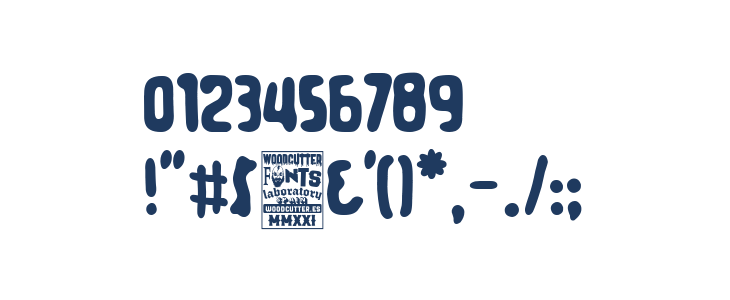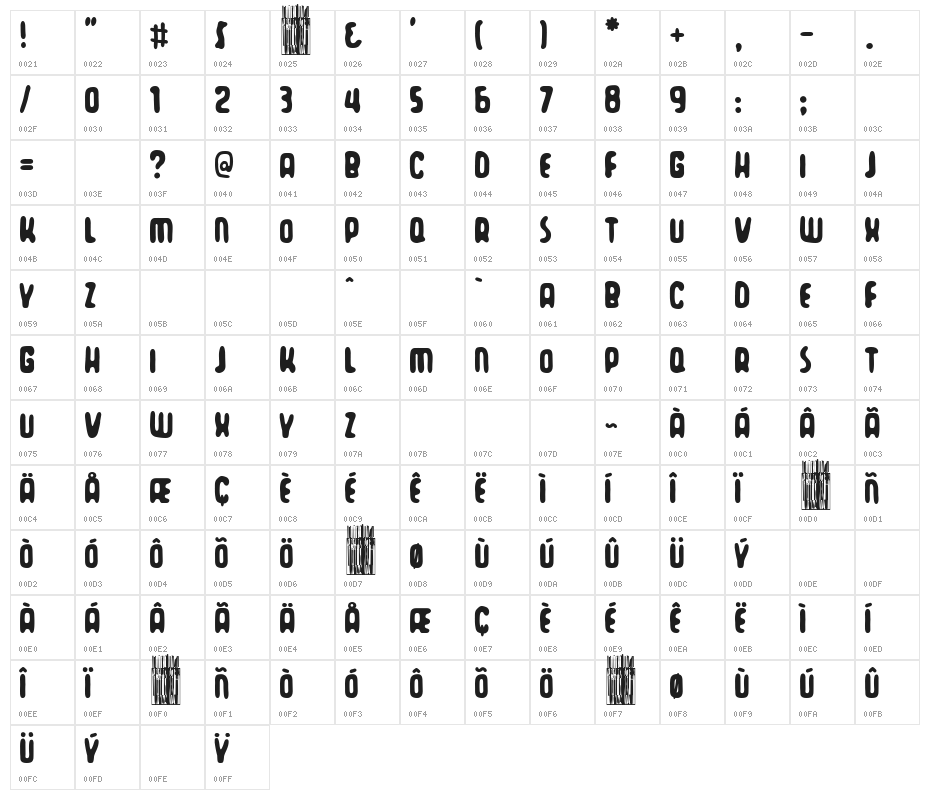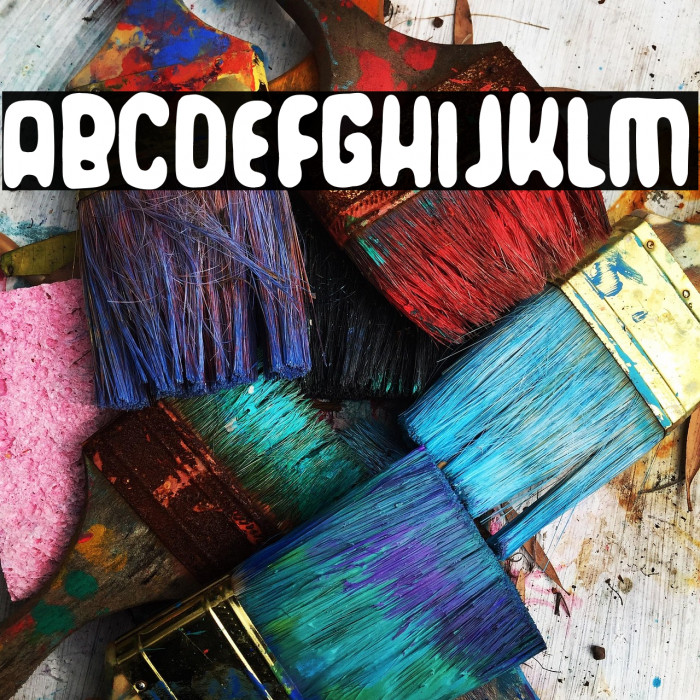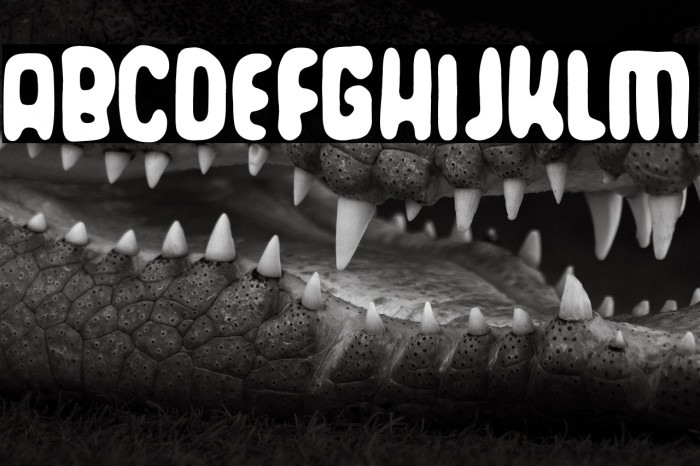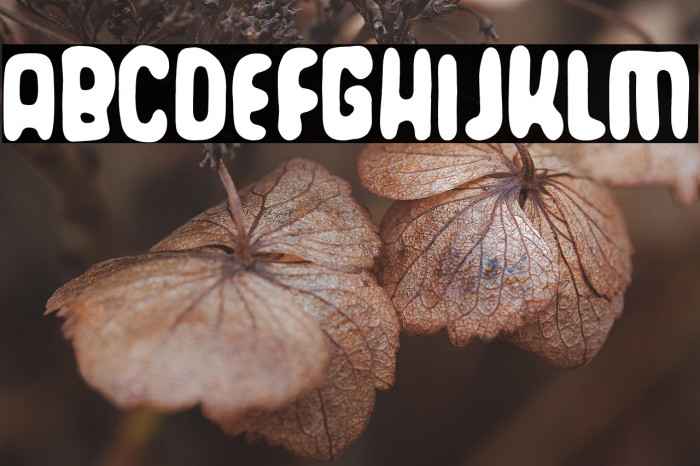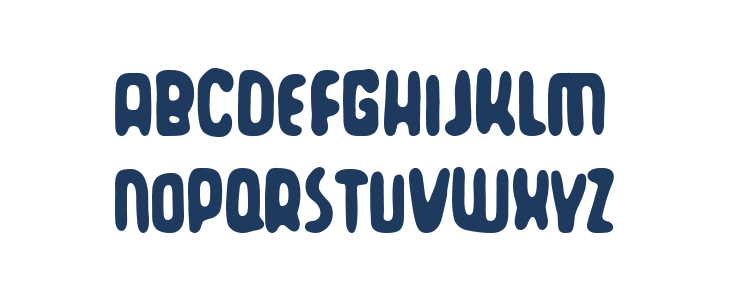
Torrezno's World Font
Torrezno's World Description
This font features bold, rounded characters with a playful and chunky appearance. The letters are uniformly thick, giving them a strong presence on the page. The rounded edges and consistent width create a friendly and approachable look, making it ideal for designs that require a touch of whimsy. The numbers and special characters maintain the same bold style, ensuring a cohesive appearance across all elements. This font is perfect for projects that aim to capture attention with its unique and eye-catching style.
| Overall Style | Playful, Bold, Chunky |
| Proposed Projects | Ideal for children's books, playful branding, posters, and creative advertising. |